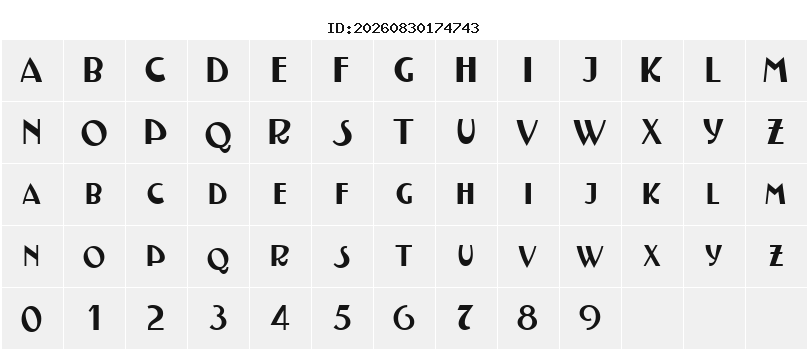
TestarossaNF Preview
• Font Name: TestarossaNF
• Full Font Name: TestarossaNF
• Designer: Nick Curtis
About TestarossaNF.ttf
TestarossaNF.ttf is a modern, elegant sans-serif font designed for ultimate readability and visual harmony. Perfect for branding, headlines, web design, and print materials.